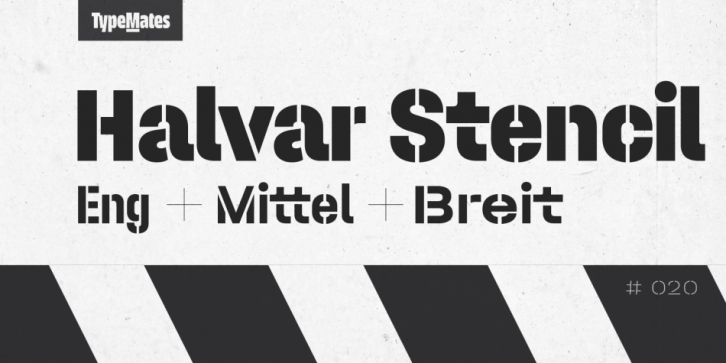
Designed by Jakob Runge, Nils Thomsen and Lisa Fischbach, Halvar Stencil is a sans serif and stencil font family. This typeface has eighty-one styles and was published by TypeMates.
Halvar Stencil, an unbreakable industrial typeface.
Halvar Stencil expands on the Halvar universe by building on its industrial attitude: this German-engineered Schablonenschrift is a typeface for construction sites, power stations, data plates and anything that demands visual impact.
Cutting stencils into the letters of Halvar reveals that the typeface is an engineer. With letters parted into circles and rectangles, Halvar Stencil is a practical typeface whose raw character is stabilised with consistency and solid workmanship. With bold weights well-suited to immense and brute uses and light weights that are airy and chic, it has flexibility to match its scale.
Unusual amongst stencil typefaces for being constructed for complex and international operations, Halvar Stencil’s multi-script design covers Greek, Latin and Cyrillic, allowing cross market branding. Naturally, a system this comprehensive also comes with tabular figures, superscripts, localised alternates and many other useful OpenType features.
Complementing all this, Halvar’s multi-plexed functionality means that designers can lighten and darken text in complex settings without worrying about reflowing text or distorted interfaces. Like Halvar, Halvar Stencil has an absolutely consistent character width across all its weights.
Subdivided into an extended Breitschrift with a bold physique, a moderate Mittelschrift and a condensed Engschrift, each stencil subfamily has nine styles ranging from lightweight Hairline to massive Black weights. United in the Halvar Stencil Collection, these three families cover an exceptional range.
Please, max the Gap! Havar Stencil is not only available in three widths, it’s shipped with three sizes of stencilling. From the tight MinGap to the loose Maxgap, this ensures that whether Halvar Stencil is applied to a shipping container or the plaque of a hard carry case, it has the right amount of stencilling for the job.